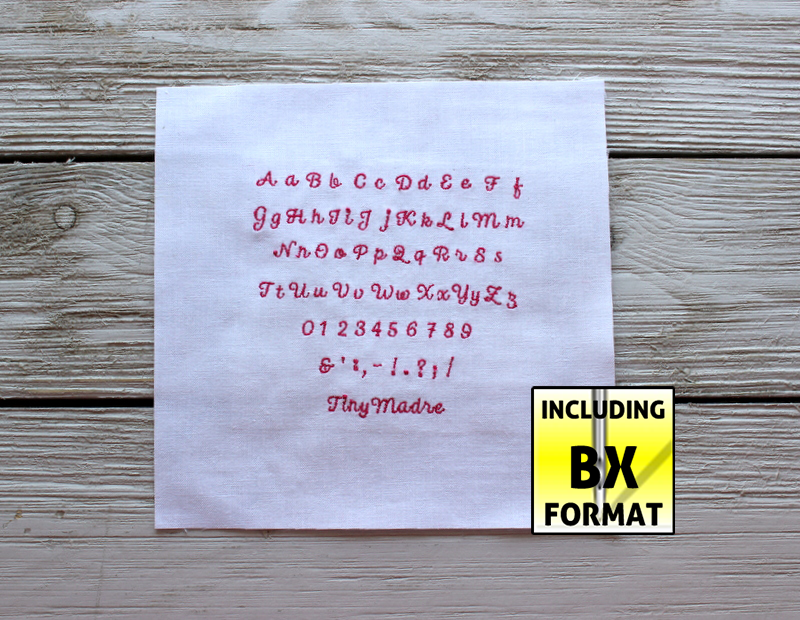
Tiny Madre Font
This is our tiniest font so far. It was entirely digitized manually to ensure perfect start and ending of each letter. Each letter starts on the left and ends on the right, closest to the start of the next letter. This font should be stitched with a 65/9 or 60/8 needle and with 60 wt thread only. This is a very legible font, even at this small size. Tips on how to stitch perfect small lettering are part of your download. Digitized to be used on cotton and heirloom fabrics like batiste or hankerchiefs. Great for heirloom stitching and for quilt labels.